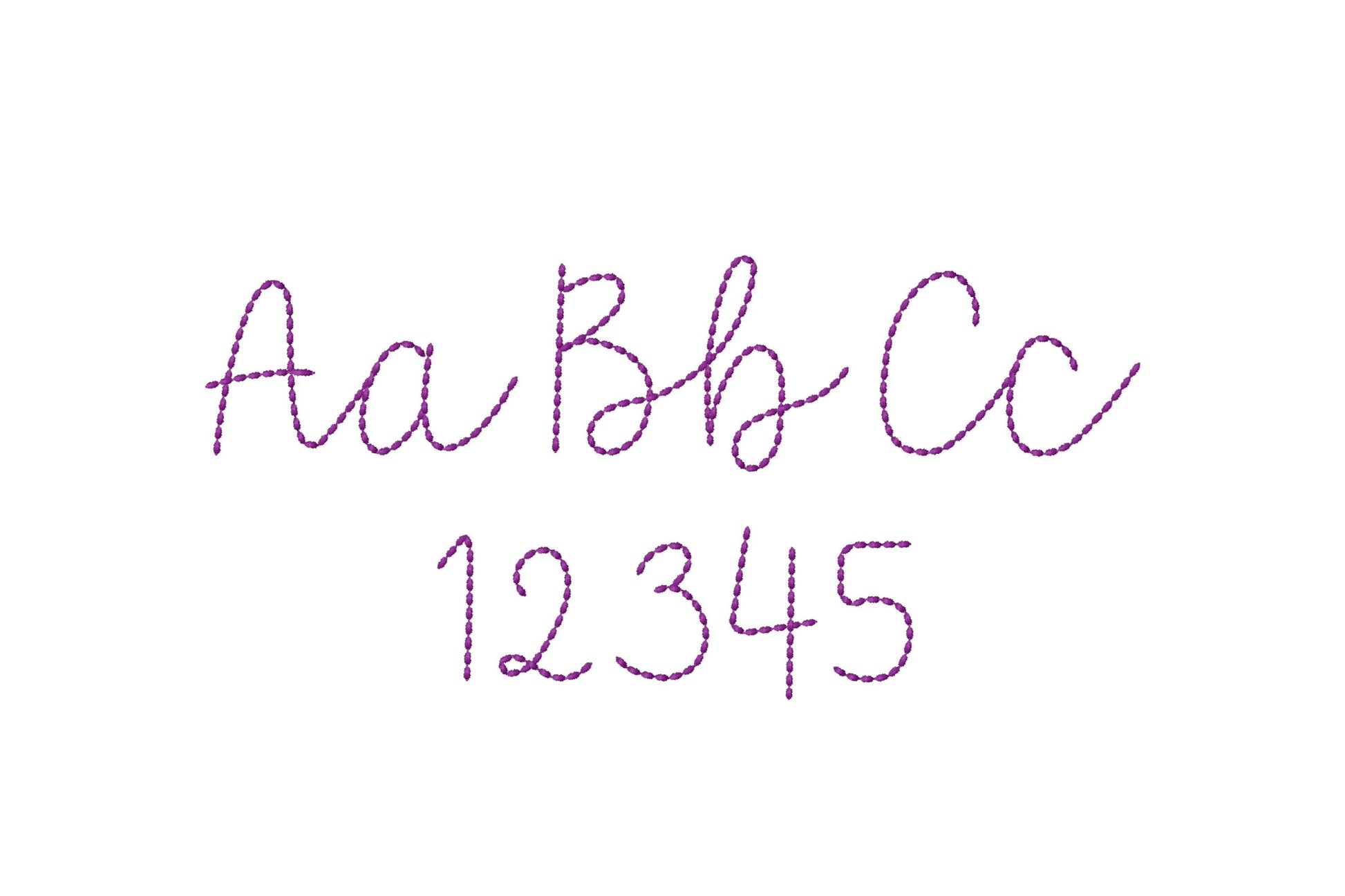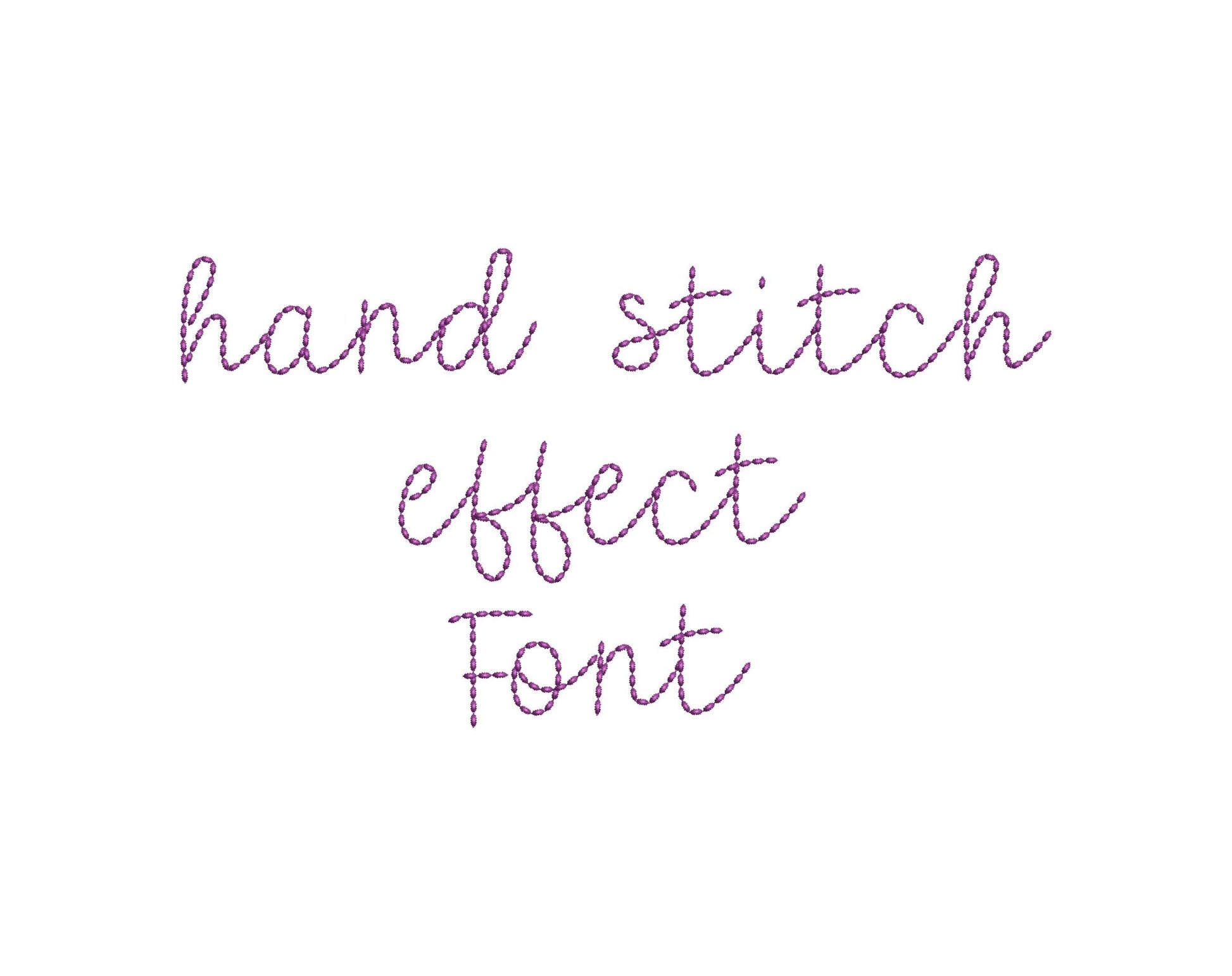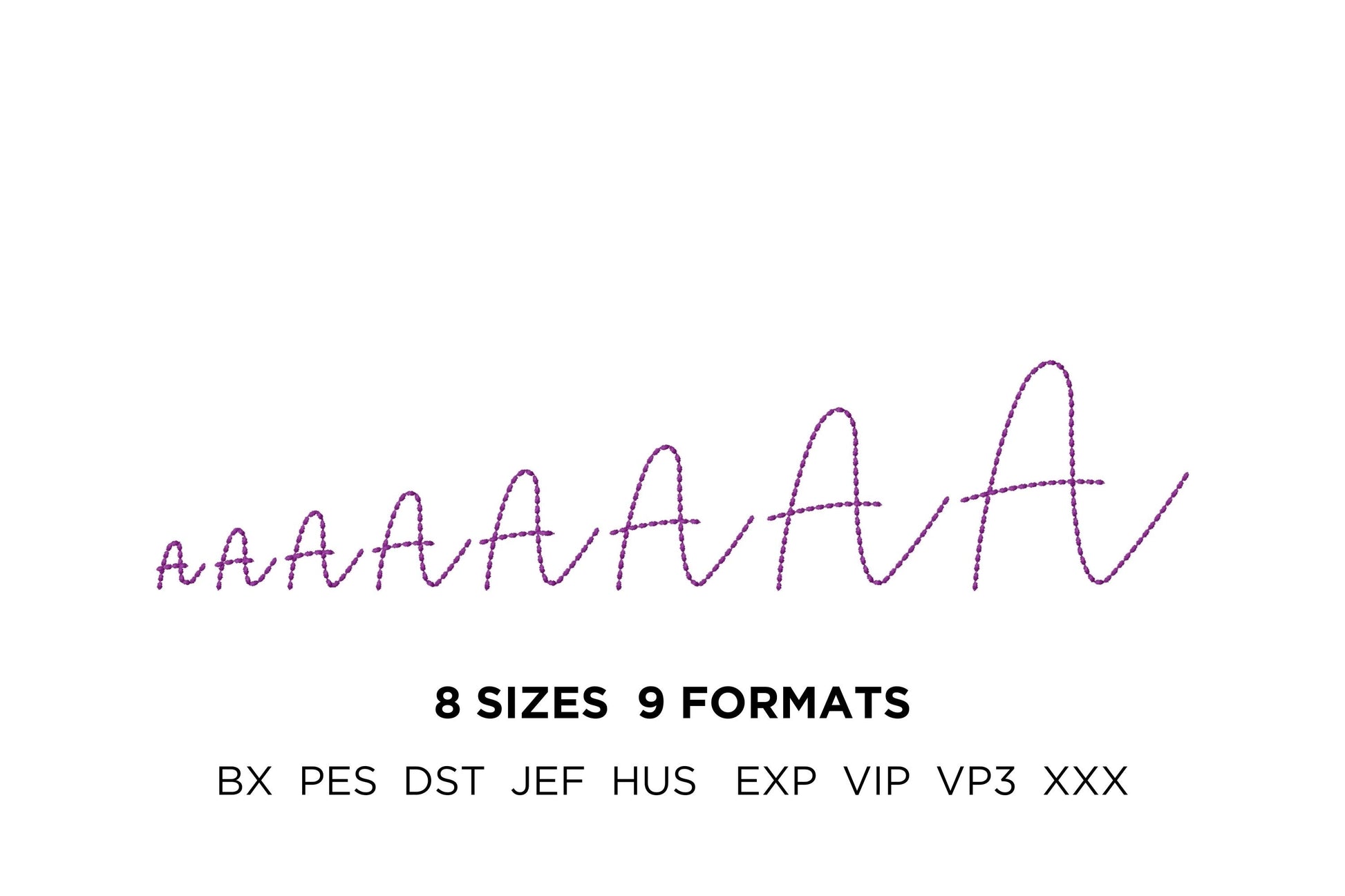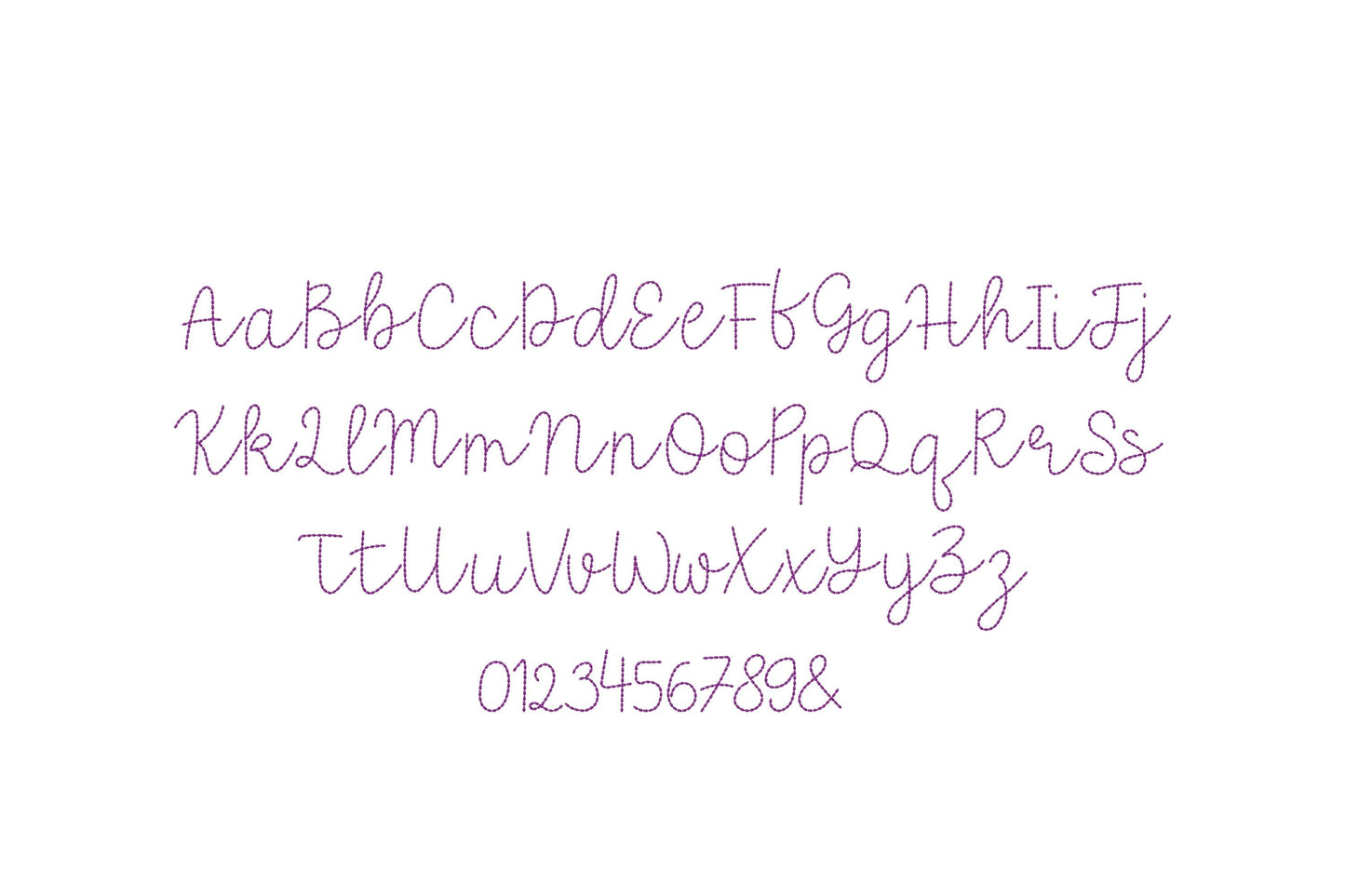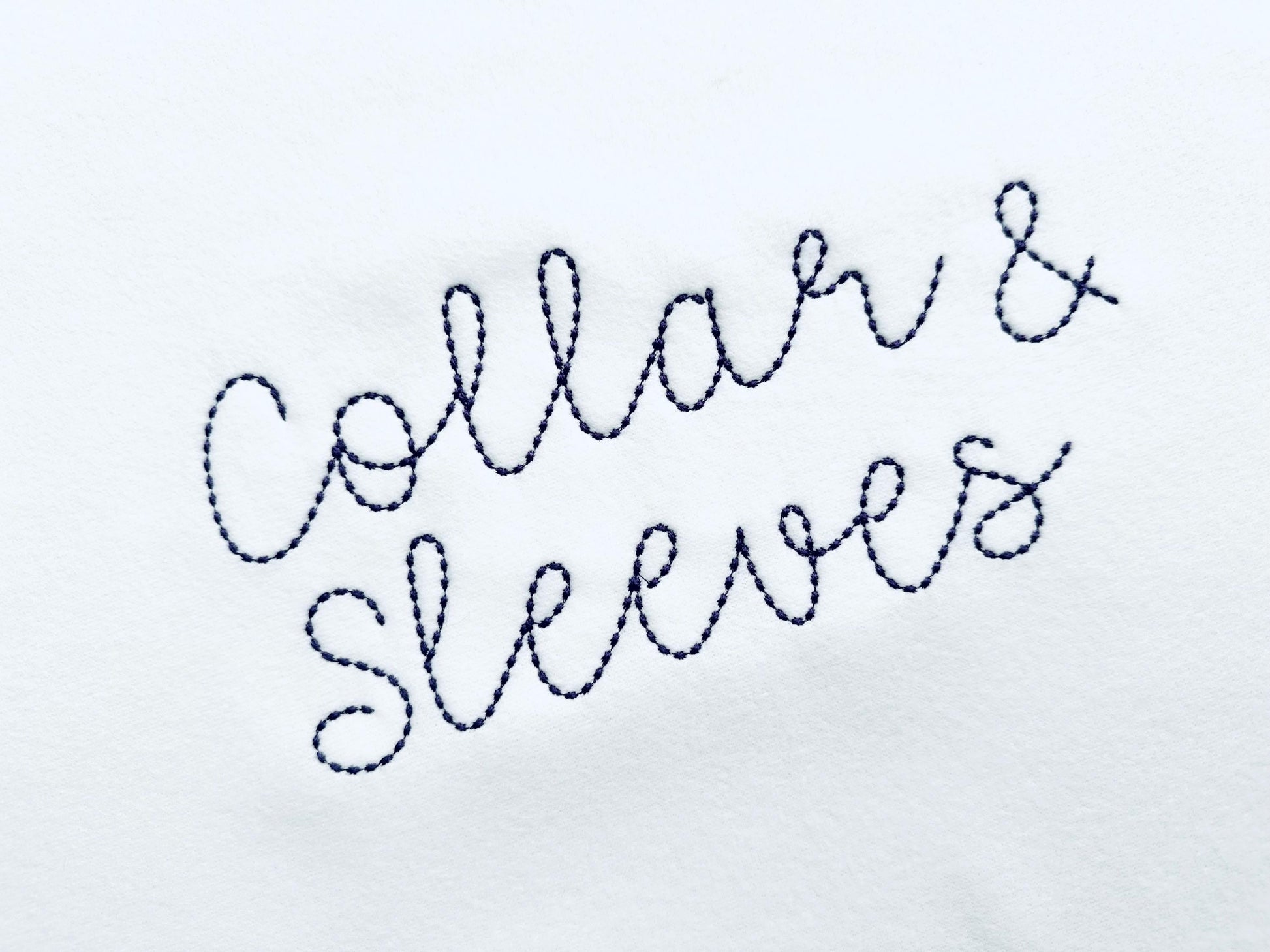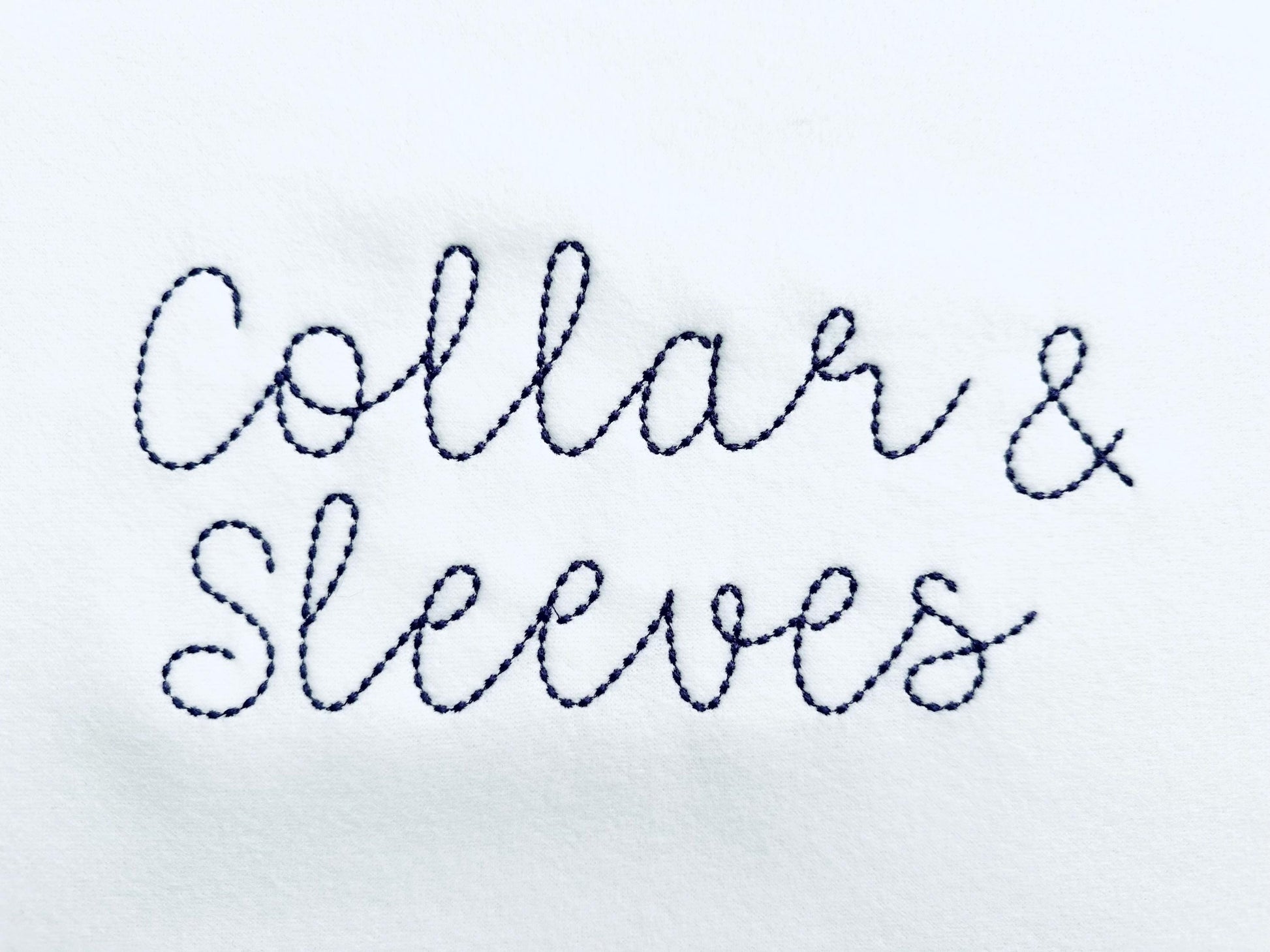
So cute for collars and worked for a small newborn outfit also!
Used for name on aprons, looks great. Will definitely be using this font on several more projects.
So so adorable for embroidery!
Great font for embroidery clothes
cute font to add to my collection!
The font is so lovely.
Perfect for sweatshirt collars and sleeves
I love to hand embroider, so I love this font.
Love the way this font looks - stitched out great as well
Super cute font - I love it!
Really like this font! Stitches out well and looks super cute
Stitched perfectly. Very cute font